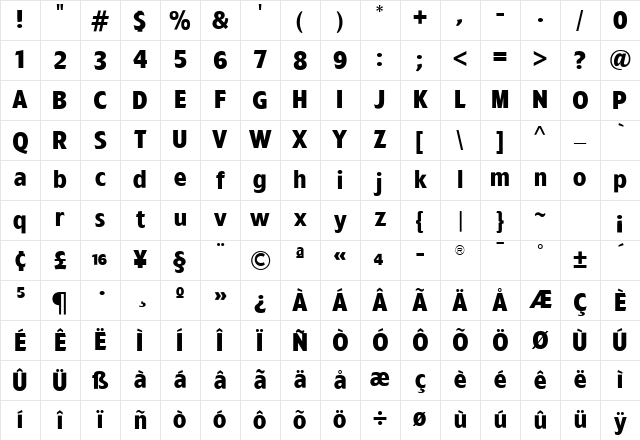
TFForeverTwo Bold Free Font
TFForeverTwo Bold
Foundry: J. Treacy,Treacyfaces,Inc
Complete TFForeverTwo Bold glyph index. Displaying only characters natively supported by TFForeverTwo Bold font.
Design Context for TFForeverTwo
TFForeverTwo is a composed and adaptable typeface that performs quietly and consistently across a wide range of design contexts. Its bold stroke weight gives it real presence on the page.
Who designed the TFForeverTwo Bold font?